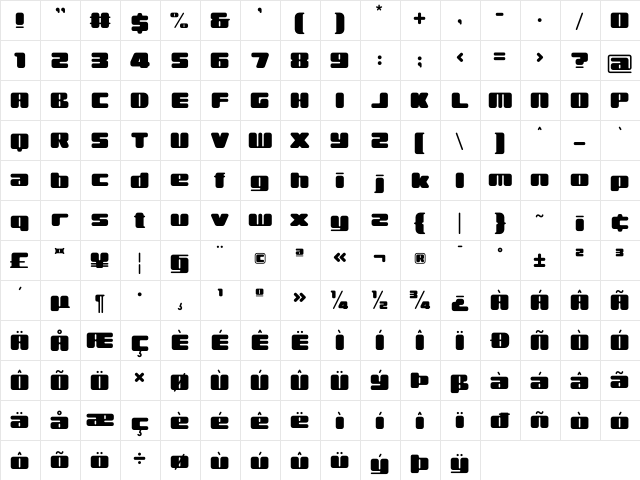
Rahovets Regular
Design Context for Rahovets Typeface
Rahovets is a composed and adaptable typeface that performs quietly and consistently across a wide range of design contexts.